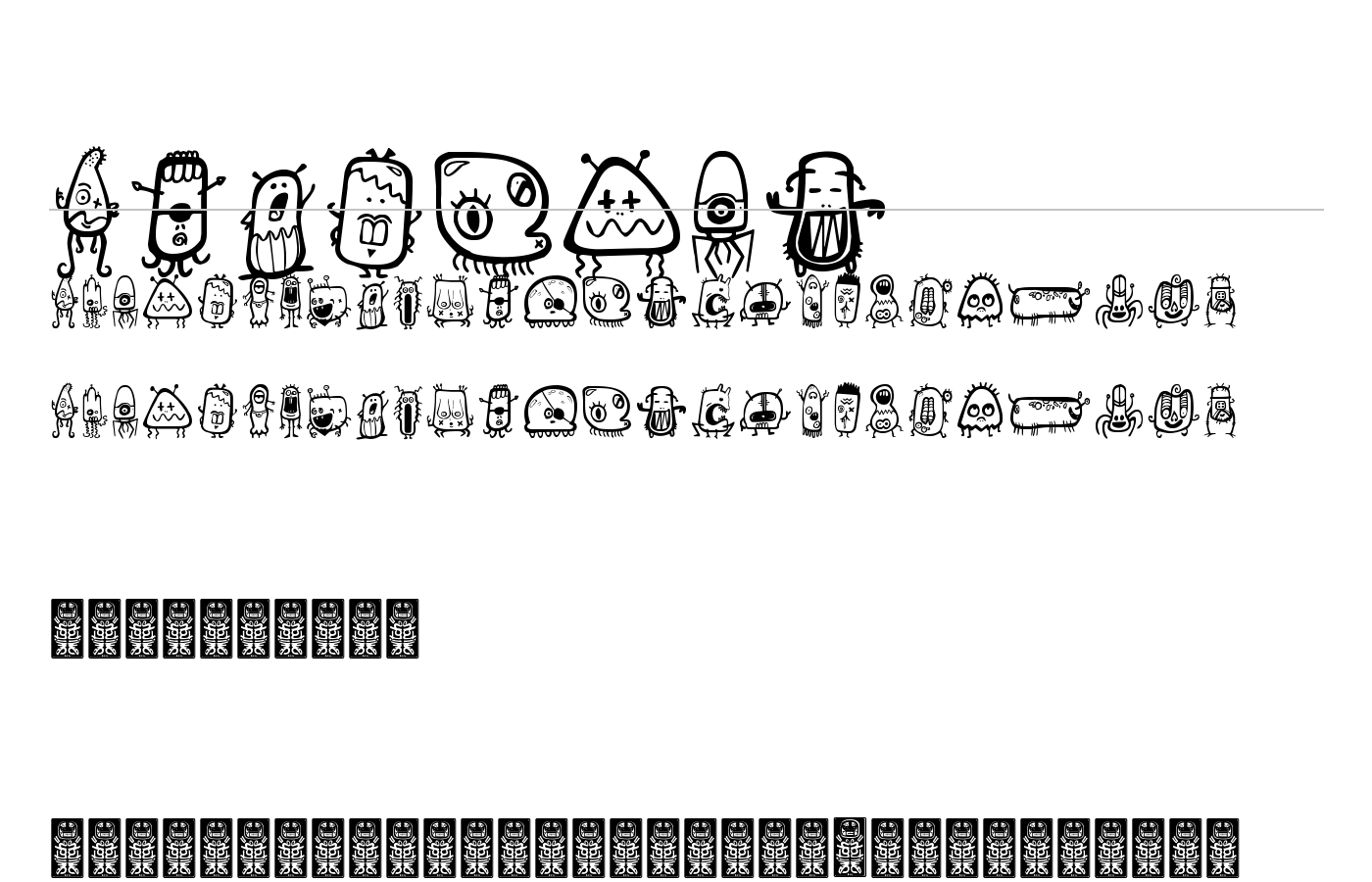
The aliendco font is a playful, hand-drawn dingbat typeface featuring quirky, imaginative alien characters instead of traditional letters. Its whimsical and detailed designs make it perfect for fun, creative projects, children’s materials, or unique branding where a lighthearted and otherworldly vibe is desired. This font works best for posters, invitations, or any design that needs a bold, eye-catching, and entertaining look.
aliendco Font
About aliendco Font